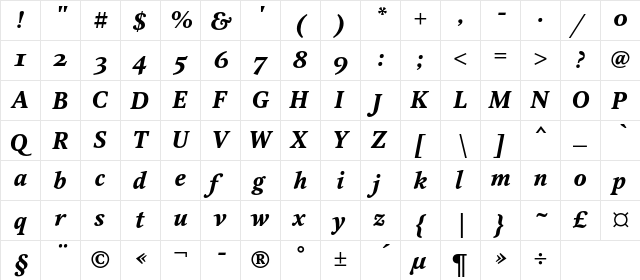
OctavaOSC Bold Italic
Design Context for OctavaOSC Typeface
OctavaOSC offers clean, dependable letterforms without strong stylistic allegiance, making it a practical choice for designers who need flexibility. The slanted form adds forward momentum and visual energy. The heavy weight commands attention and anchors typographic hierarchies.
Pro Tip: Use OctavaOSC for emphasis, pull quotes, and subheadings where its slanted energy can add rhythm to the layout.